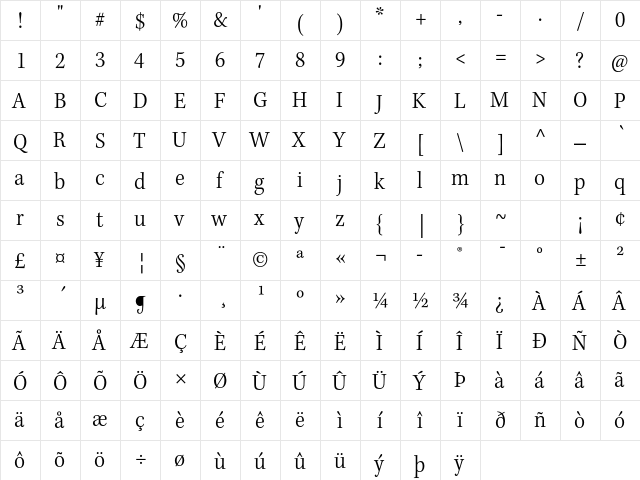
Kepler Std Light Semicondensed Font Preview
Kepler Std Light Semicondensed
Kepler Std Light Semicondensed Font Details
| Style | Light Semicondensed |
| Designer | Robert Slimbach |
Design Context for Kepler Std Typeface
Kepler Std offers clean, dependable letterforms without strong stylistic allegiance, making it a practical choice for designers who need flexibility. Its slender proportions lend an understated elegance to any composition. The condensed width makes it efficient for tight spaces without sacrificing legibility.